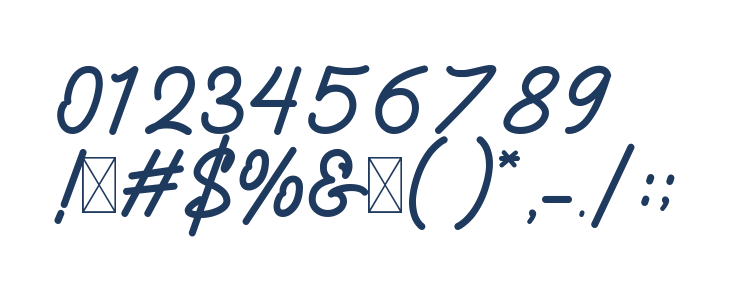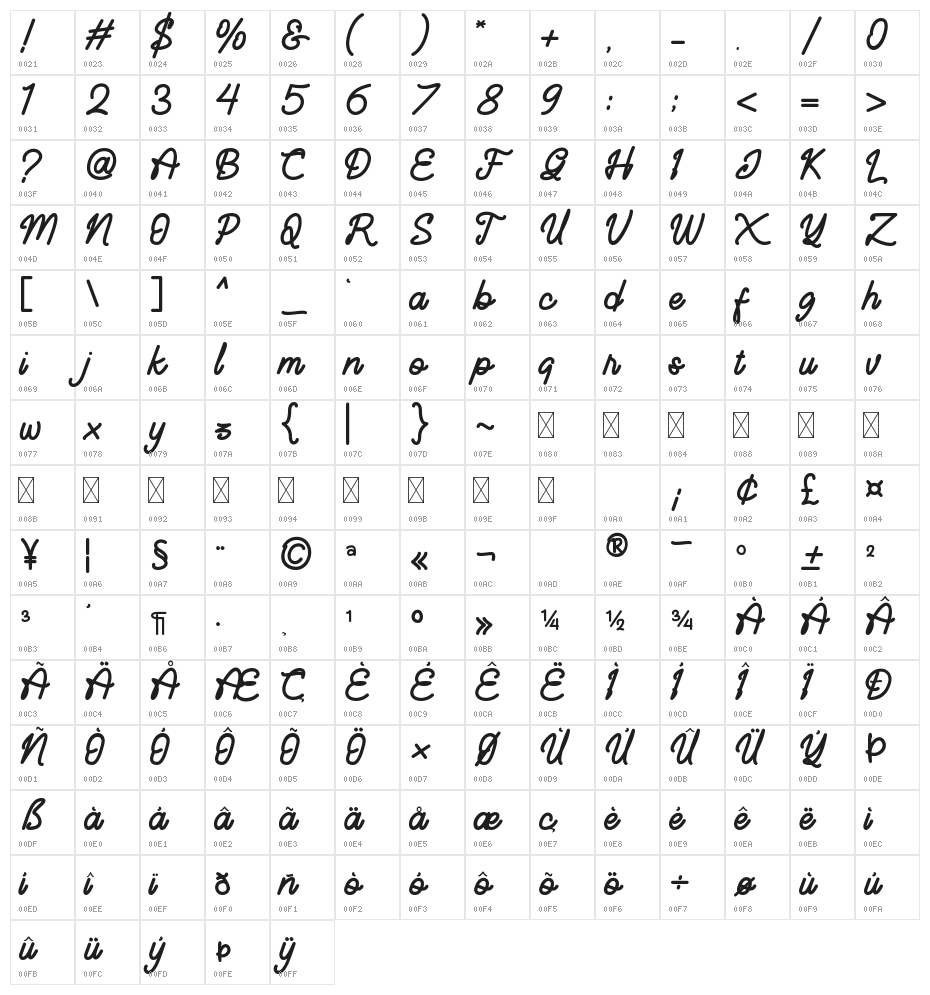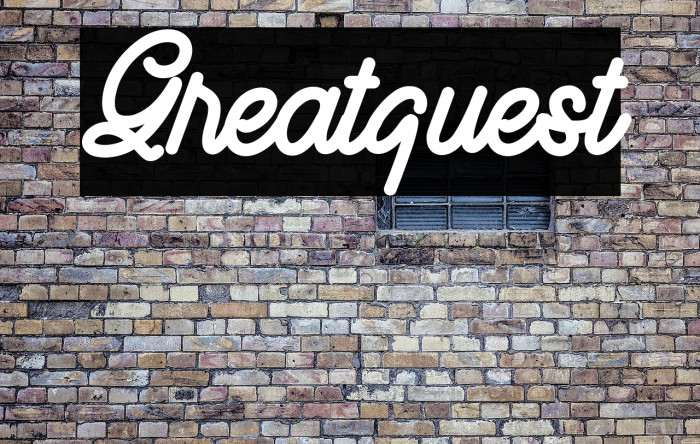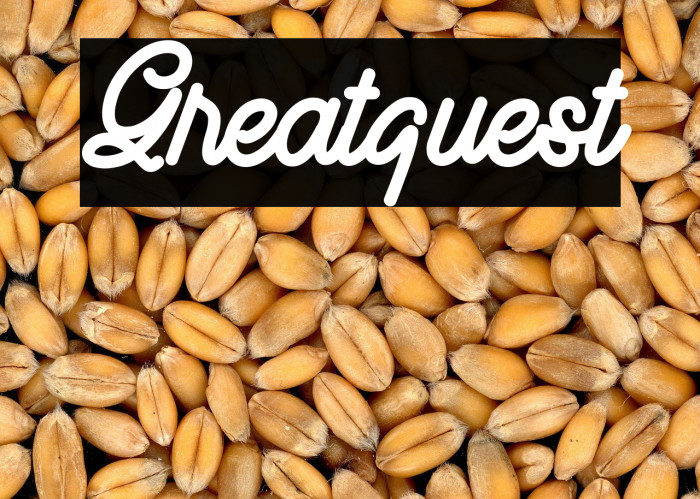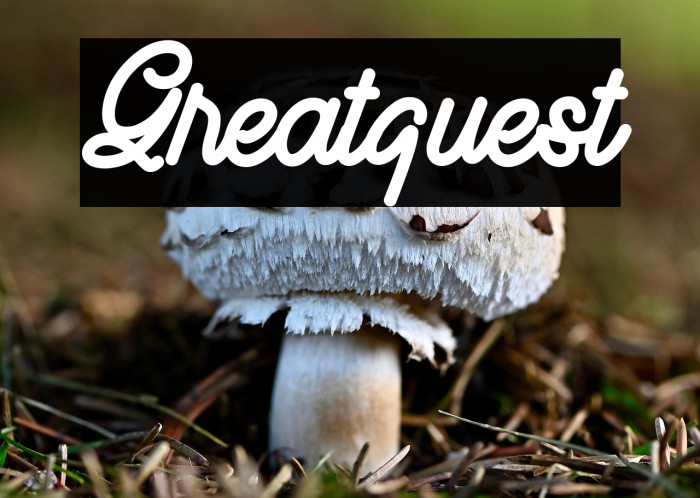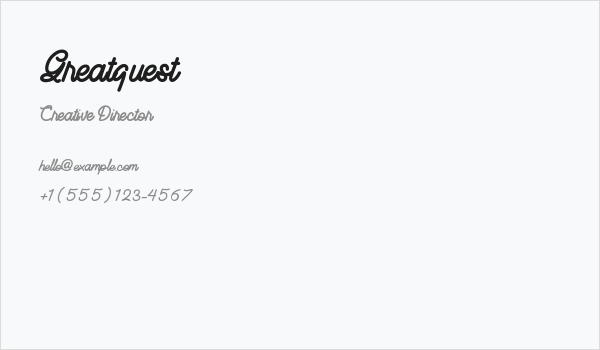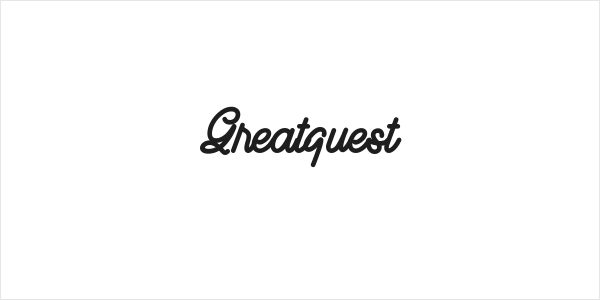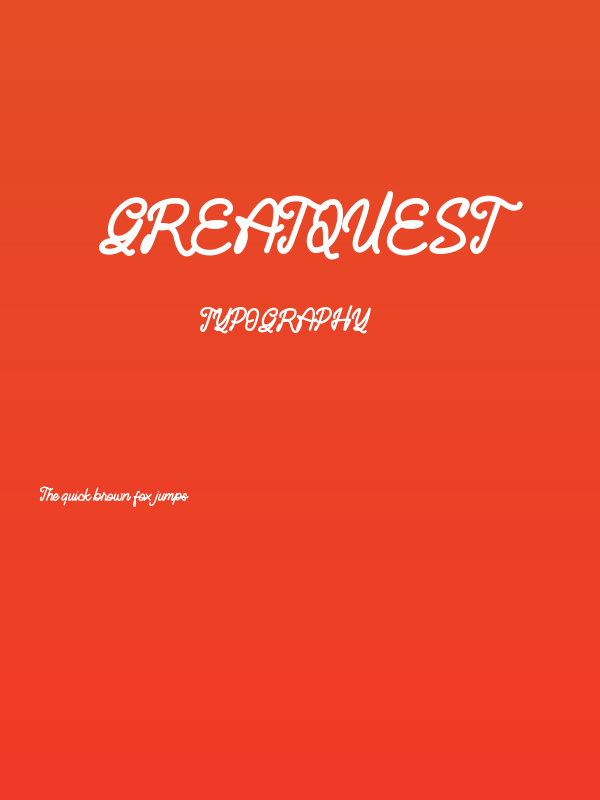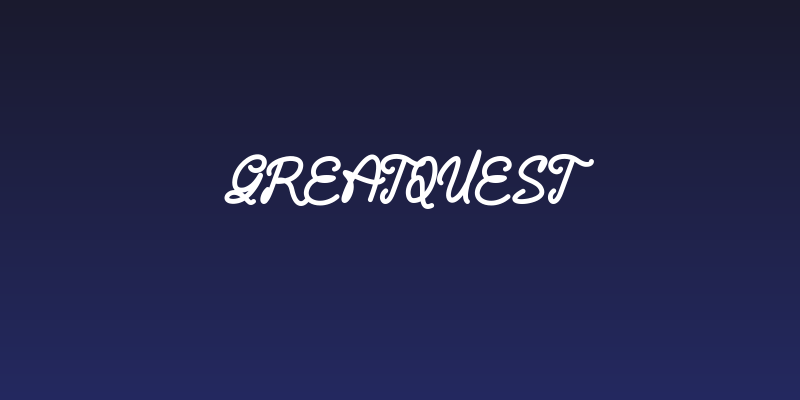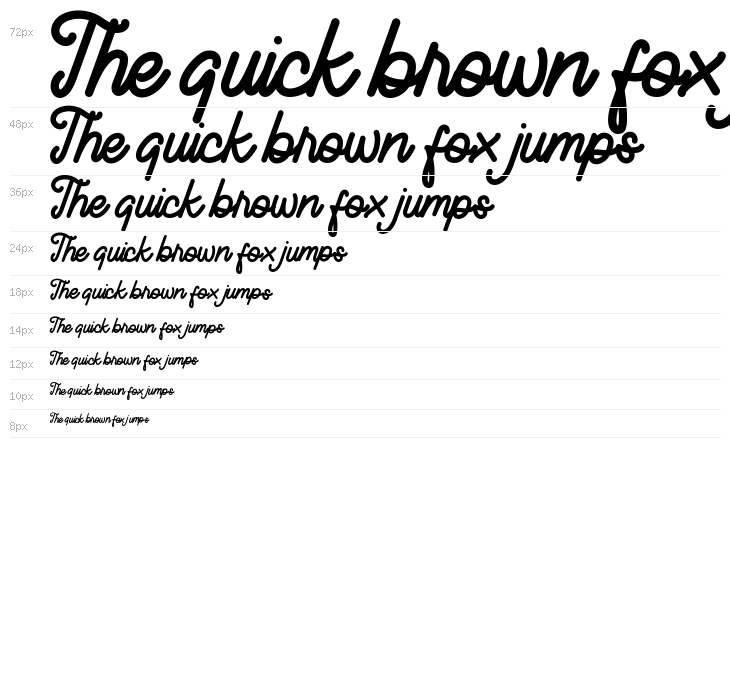
Greatquest Font
Greatquest Description
This font features a dynamic and flowing script style, characterized by its cursive, handwritten appearance. The letters are interconnected, creating a sense of continuity and movement. The uppercase letters are slightly larger and more elaborate, while the lowercase letters maintain a consistent flow. The numbers and special characters are designed to match the overall style, with smooth curves and elegant loops. The font exudes a sense of elegance and sophistication, making it suitable for projects that require a personal touch.
| Overall Style | Elegant and Sophisticated |
| Use Case | Logos, Invitations, Decorative Text |
| Proposed Projects | Ideal for wedding invitations, greeting cards, personal branding, and elegant packaging designs. |